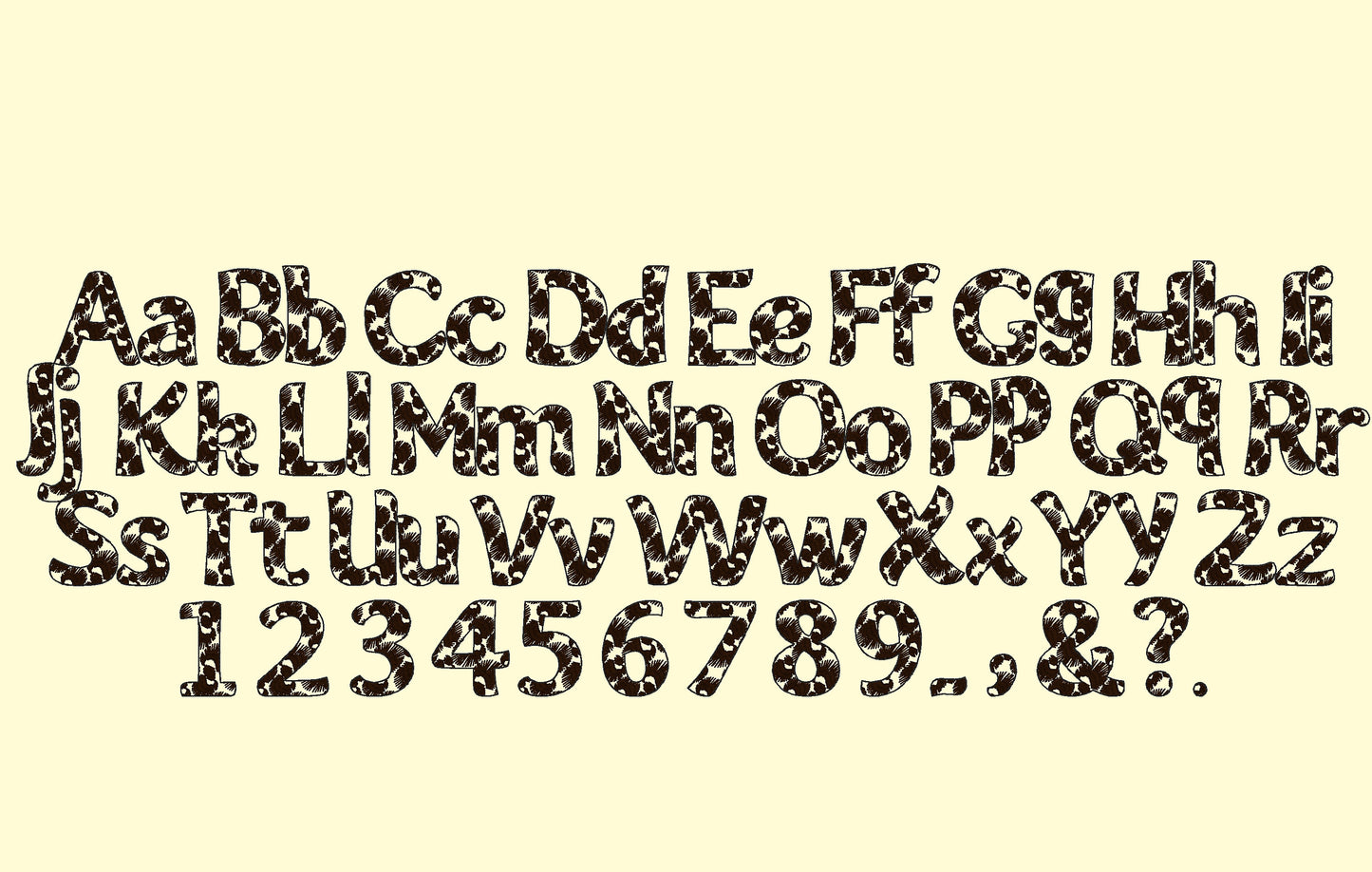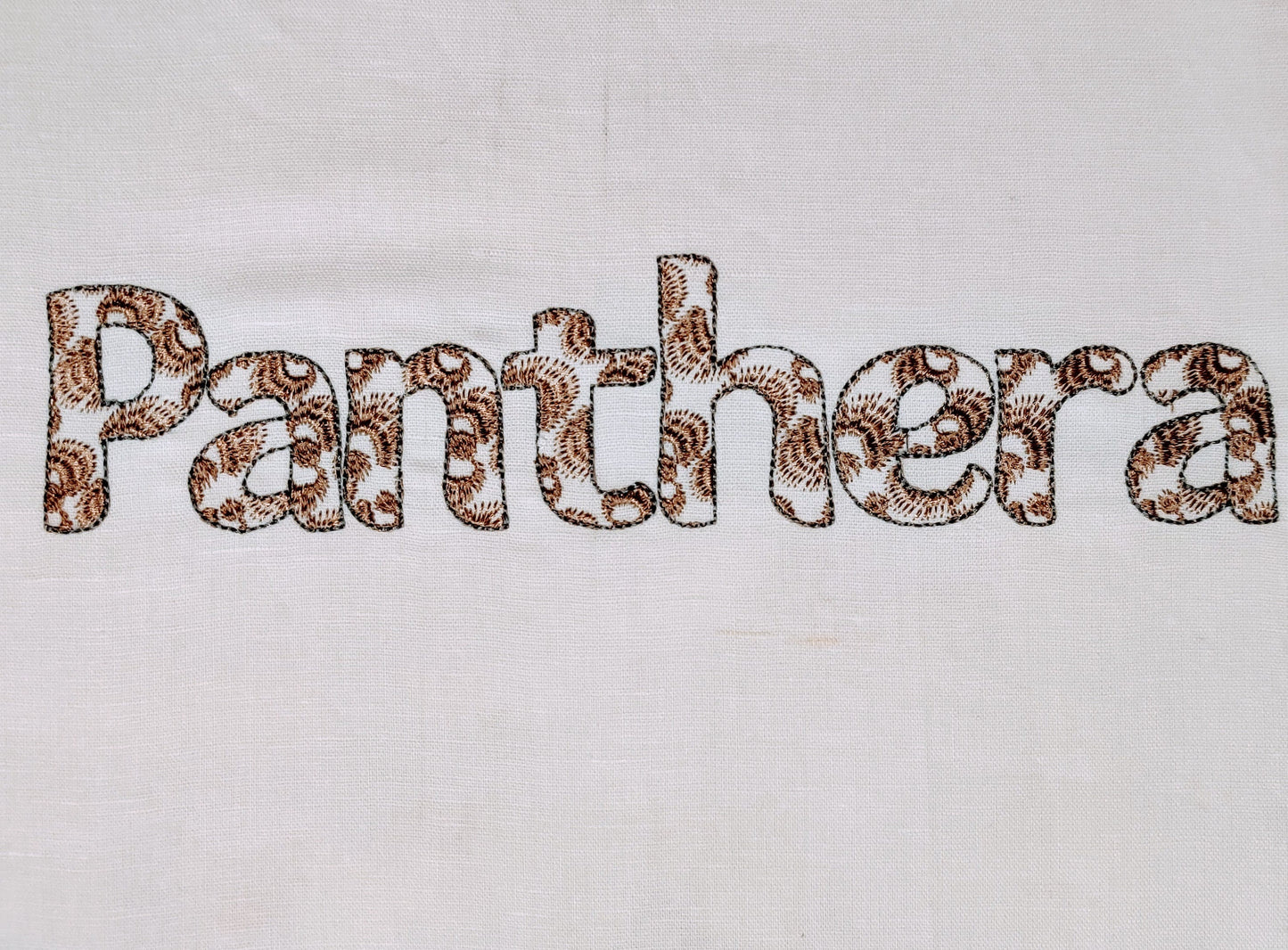
Uppercase and lowercase letters, numbers, and punctuation.
This is a quick stitch design, the background fabric looks through. Stunning effect!
Leopard spots are part of the embroidery. Stitches without jumps and cuts.